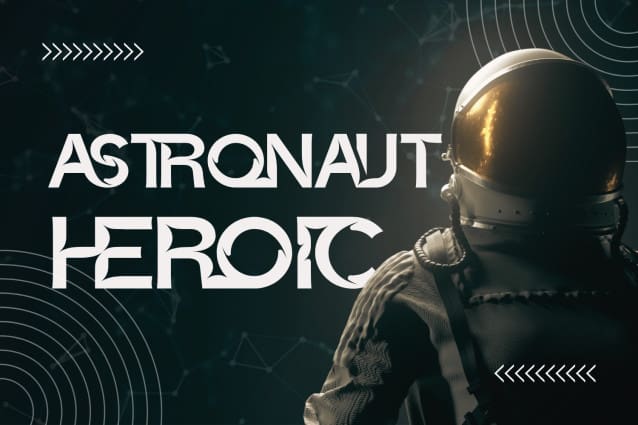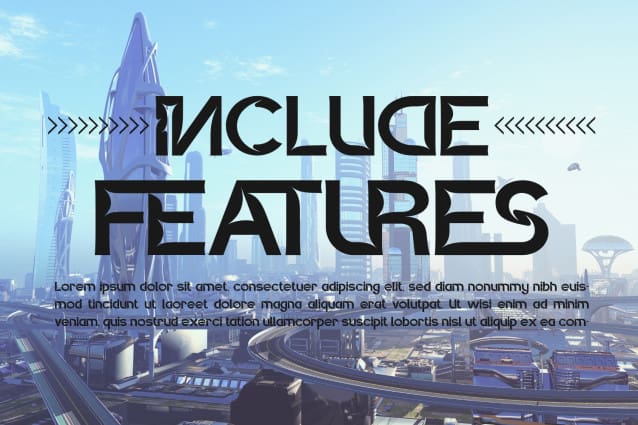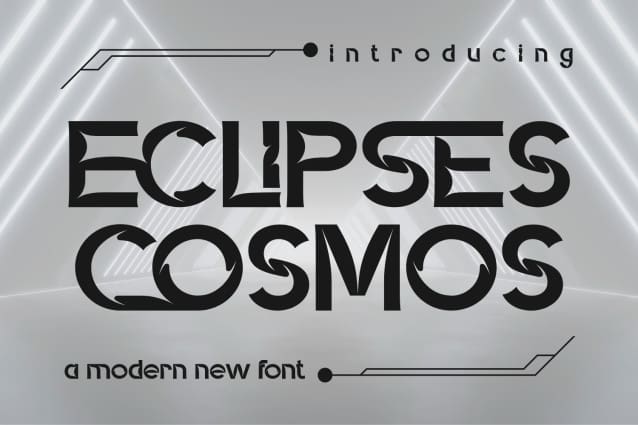
Eclipses Cosmos Font
ECLIPSES COSMOS FONT is a hi-tech logo inspired font with unique and futuristic looks. With sans based, a sans serif font with unique and modern feels, this font also including ligatures that you can use for more options for your logo project. It will be perfectly used for Branding, Logo Design, Lettering, Logotype, Clothing, Poster, magazine, packaging, posters, shopping bags, t-shirts, book covers, photography, special events and other design project.
ECLIPSES COSMOS was built with OpenType features and includes 100 ligatures, alternate, numbers, punctuation, and it also supports other languages.
AC AD AL AN AR AS AT AU AV BE CA CE CH CO CT DE DI EA EC ED EE EL EM EN EP ER ES ET FE FO FR GE HA HE HI HO IE IC IL IN IO IR IS IT JU KE LA LE LI LL LO LY MA ME MI NC ND NE NG NO NT NS OC OF OM ON OO OP OR OT OU OW PA PR RA RD RE RI RO RS RT SE SH SI SO SS ST TA TE TH TI TO TR TT UM UN UR VE WI WO